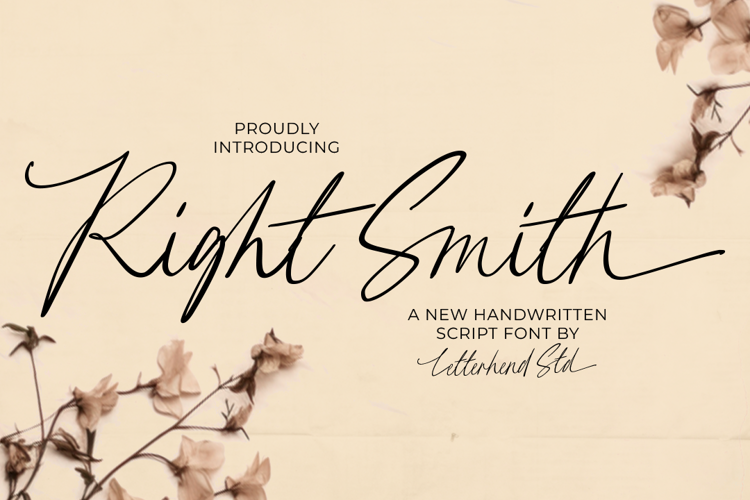
Right Smith Font
Right Smith is a chic and elegant handwritten script font with a natural flow. Its smooth, long swashes and slightly casual strokes make it perfect for modern branding, wedding invitations, logos, and social media quotes.